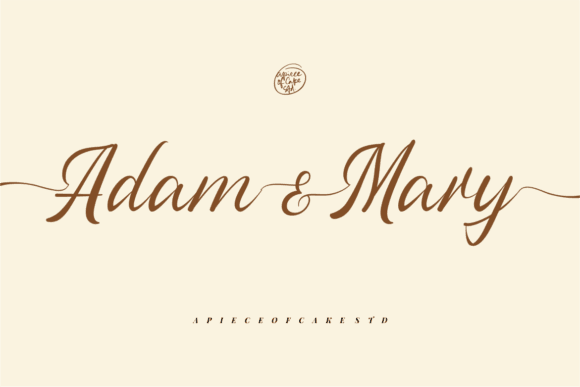
Adam & Mary Font for Cricut, Silhouette and Printable Designs
This is a graceful script font featuring romantic swashes and fluid curves, designed for use in craft cutting software and printable projects. Adam & Mary delivers a touch of sophistication to personal and professional creative work. Its elegant styling makes it suitable for invitations, greeting cards, and home decor, enhancing any project with a refined aesthetic. As a versatile americana font for cricut designs, it easily complements a variety of themes, from rustic to modern. Whether you're crafting for a special occasion or personalizing everyday items, this font is sure to elevate your creations. With its elegant letterforms, this typeface enhances everything from wedding invitations to business branding. The alberteen font for design projects creates a memorable impression, making it an ideal choice for those who seek to infuse their work with a unique, artistic flair. Whether you’re crafting custom decor or designing marketing materials, this font consistently brings an enchanting touch.
As a font entity, it's optimized for crafting machines and print production, making it ideal for wedding signage, gift tags, and custom home décor. Its legibility and stylish appearance make it a favorite among creators who want to blend romance with clarity.
Perfect for both beginners and seasoned crafters, this font brings character and elegance to every design it touches.
- Wedding invitations and signage
- Printable quotes and wall art
- Vinyl decals for mugs, glassware, and gifts
- Customized stationery and tags
- Personalized home decor and printables
- Romantic and clean script style
- Works beautifully with cutting machines
- Great for printables and invitations
- Stylish curves and smooth connections
Q: What type of font is Adam & Mary?
A: It’s a romantic script font designed for elegant crafts, printables, and cutting machine projects.
Q: Does the script weld well in Cricut Design Space?
A: Yes, the smooth connecting strokes make this font weld cleanly for cutting applications.
Q: Can I use it to create printable wedding materials?
A: Yes, it’s ideal for invitations, place cards, and other wedding-related printables.